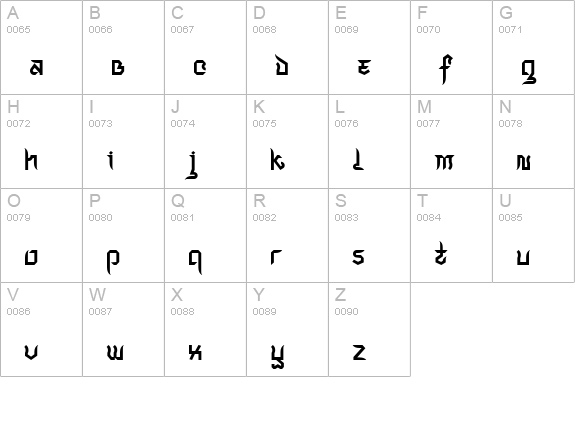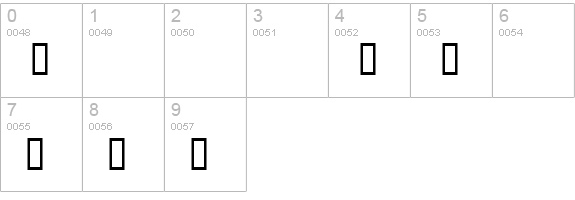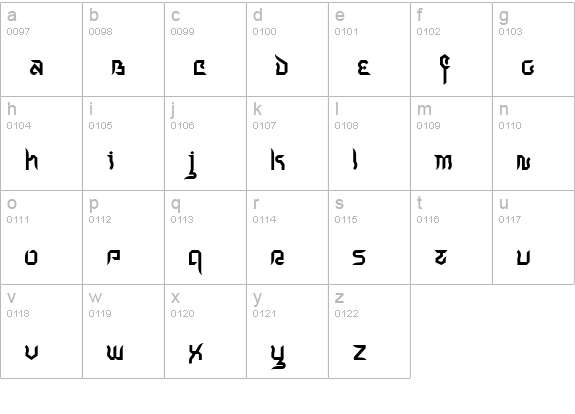
Indochine Font Details
Indochine font is a captivating and versatile typeface that effortlessly combines elegance with a touch of exoticism. Its intricate letterforms and graceful curves evoke a sense of mystique, making it the perfect choice for projects that require a unique and eye-catching design. With its wide range of weights and styles, Indochine font offers endless possibilities for creative expression. Whether you're designing a logo, crafting a headline, or creating a stunning piece of typography art, this font has got you covered. One of the most remarkable aspects of Indochine font is that it is freely available to download at FontsMarket.com. This means that you can access this extraordinary font without any cost, allowing you to bring your creative visions to life without breaking the bank. Indochine font not only embodies beauty and elegance, but it also boasts exceptional legibility. This makes it a practical choice for a variety of design projects, ensuring that your message is effectively communicated to your audience. Indochine font's timeless appeal is further enhanced by its seamless integration into both print and digital media. Its high-quality design ensures that it looks stunning in any context, whether it's displayed on a poster, a website, or a social media graphic. In conclusion, Indochine font is a free masterpiece that combines beauty, versatility, and legibility. By downloading it from FontsMarket.com, you gain access to a font that will elevate your design projects and captivate your audience with its enchanting allure.